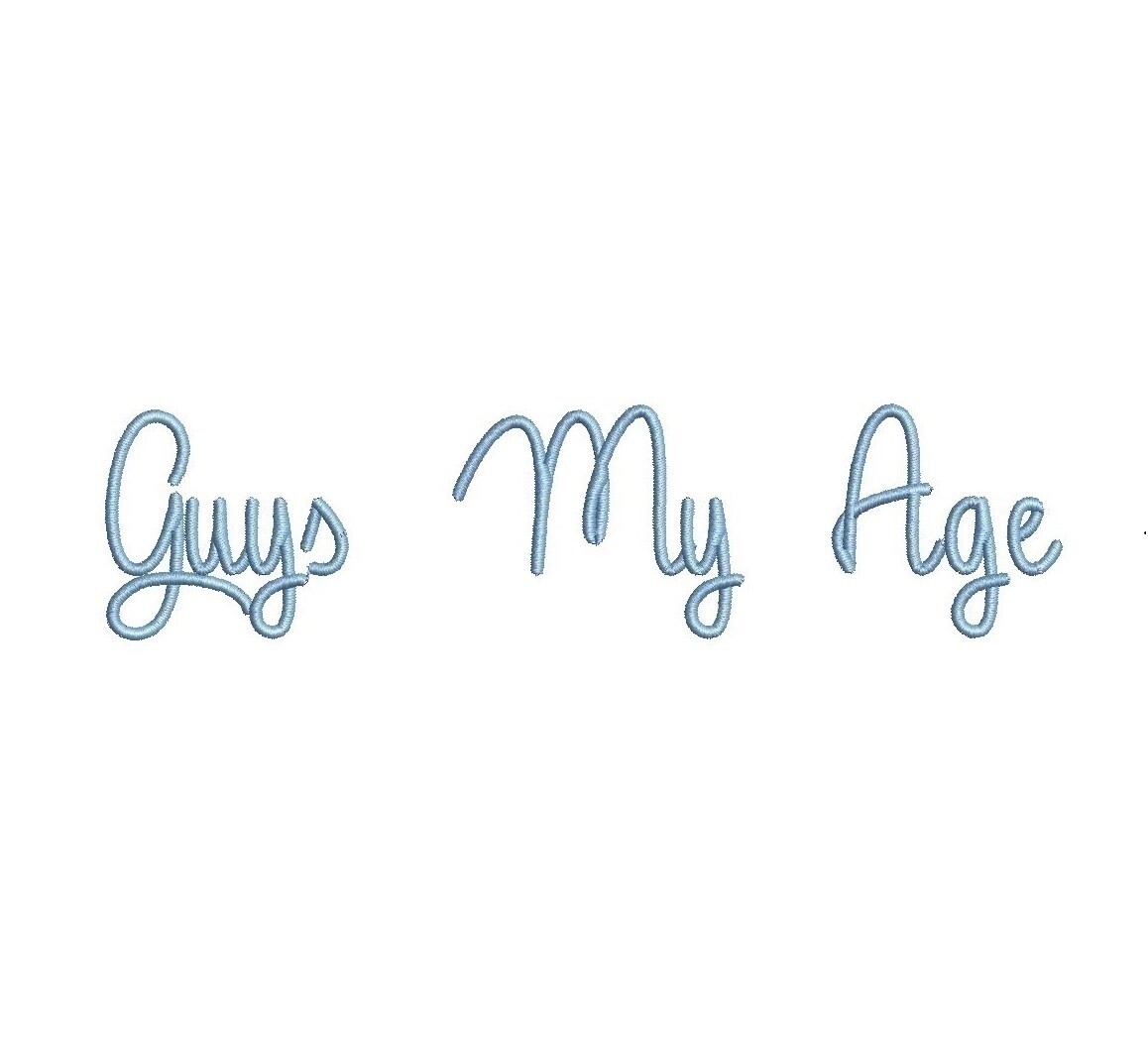
Welcome to the stylish realm of Guys My Age Regular ESA font, where sophistication meets modernity. This suave and versatile typeface adds a dash of charm to your designs. Crafted with meticulous attention to detail, this premium font ensures a seamless and enjoyable design experience. Compatible with Wilcom Studio e4.5.6 and Hatch 3 versions and up, it guarantees smooth embroidery creation. Whether it's trendy projects, contemporary branding, or fashionable designs, Guys My Age Regular ESA font exudes a touch of elegance. Embrace its chic allure and create designs that resonate with the modern audience. Don't miss out; get it now and set new trends.